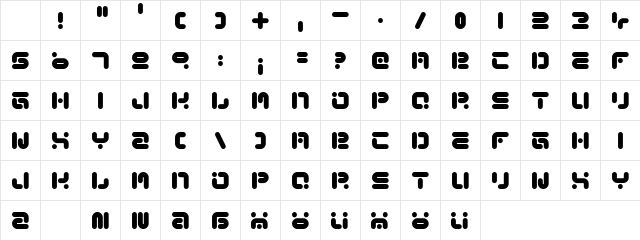
Complete Funky Knut Sober Regular glyph index. Displaying only characters natively supported by Funky Knut Sober Regular font.
Funky Knut Sober has an approachable, lighthearted character - its loose, expressive forms are well-suited to children's content, casual branding, and fun-first design.
Font Pairing: Pairs well with a rounded or humanist sans for body copy, maintaining the friendly tone without relying on Funky Knut Sober to carry extended reading.
Pro Tip: Use Funky Knut Sober at larger display sizes where its expressive character can land. Pair with a clean, simple sans for body copy to maintain readability.